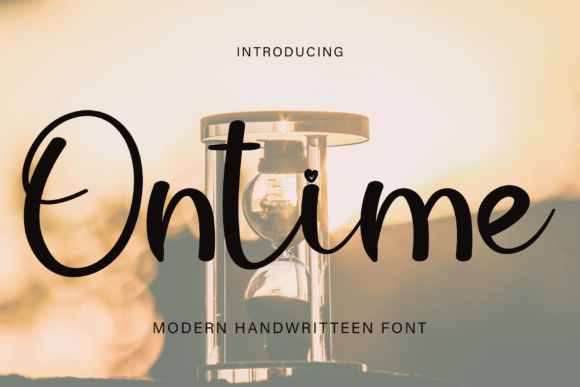
Embark on a typographic odyssey with Ontime Font, a breathtaking script font family that ignites creativity and transforms your designs into captivating masterpieces. Let your imagination run wild as you explore the boundless possibilities offered by this exquisite font, meticulously crafted by the visionary artisans at pinkmeca.
Immerse yourself in the allure of Ontime, a font that epitomizes elegance, charm, and timeless beauty. Its graceful curves and whimsical strokes dance across the page, evoking a sense of wonder and enchantment. Elevate your designs with this font, and watch as your words come alive with an energy and vibrancy that captivates the hearts of your audience.
With Ontime Font, you'll discover a world of versatility and endless applications. From YouTube banners and cover logo mockups to wedding invitations, ID cards, flyers, and enchanting crafts, Ontime seamlessly adapts to your creative vision, adding a touch of sophistication and charm to every project.
Unleash your inner artist and let your creativity soar with Ontime. Whether you're a seasoned designer or just starting your artistic journey, this font will become your trusted companion, guiding you towards design excellence. Experience the joy of crafting designs that resonate with your audience, leaving them spellbound by the beauty and originality of your work.
So, dear design enthusiasts, it's time to embrace the power of Ontime and embark on a transformative creative adventure. Allow this font to ignite your passion, inspire your imagination, and redefine the boundaries of your design capabilities. With Ontime, you'll discover a world of endless possibilities, where every design becomes a testament to your artistry and creativity.